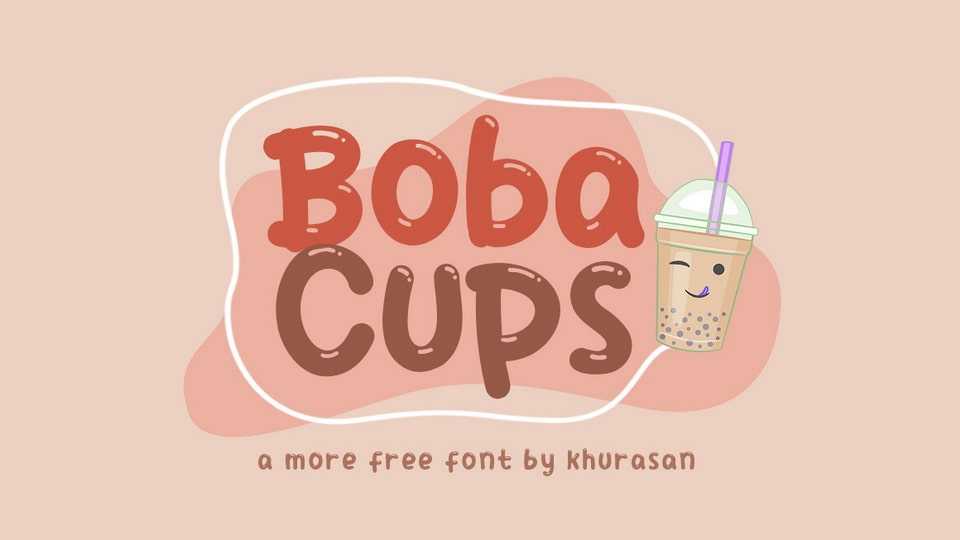
Download Boba Cups font, a funny and playful hand lettered typeface. Boba Cups is perfect for posters, logos, magazines, book covers, banners, and many more lovely designs.